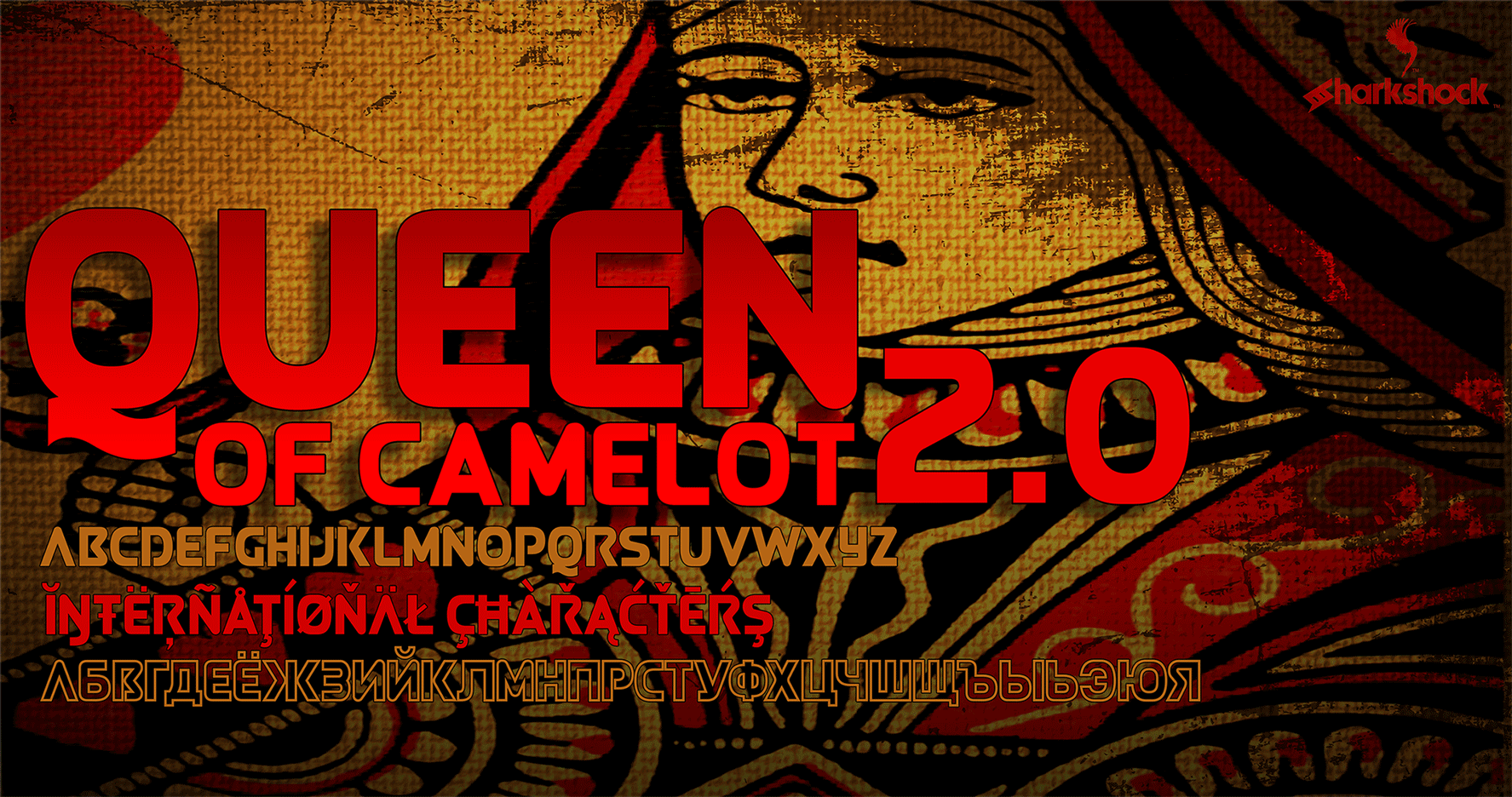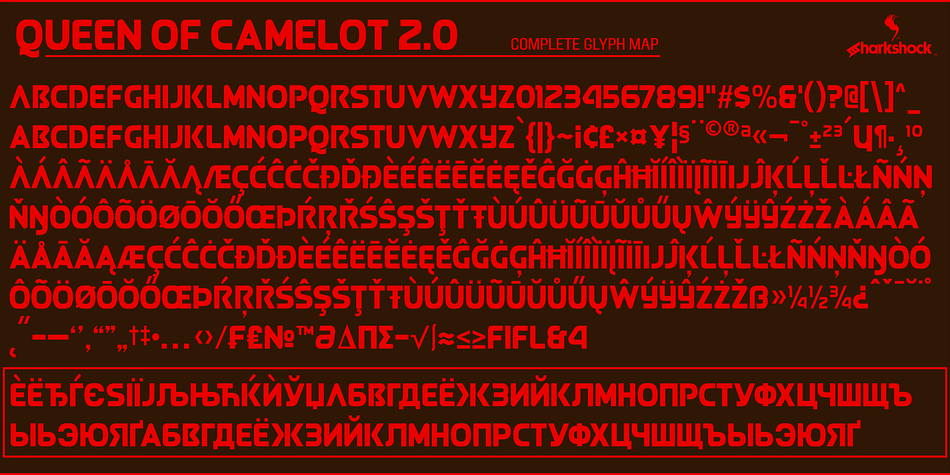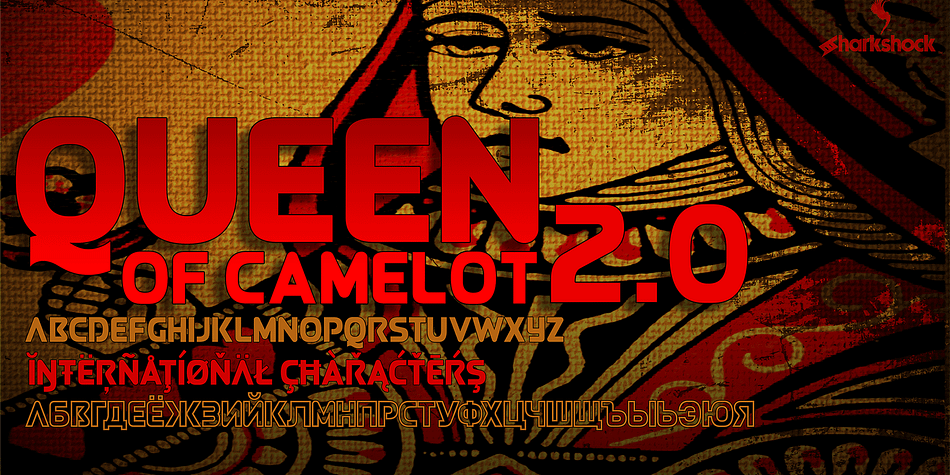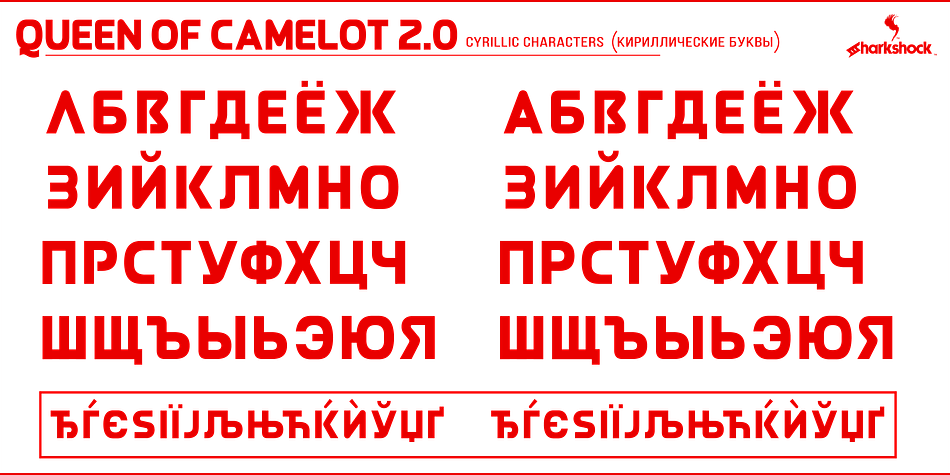
Designed by Dennis Ludlow, Queen Of Camelot is a display sans font family. This typeface has three styles and was published by Sharkshock.
After several revisions to Queen of Camelot a slightly different version has emerged and joins the 2.0 class. Improved metrics, kerning, and completely redrawn glyphs are the most notable upgrades to the original.
This all-caps display font features many rounded corners with no variation in width. Punctuation is included as is basic Latin, extended Latin, diacritics, Cyrillic, fractions, and kerning. There are 3 versions included in the complete family.
Use it for a logo, sports ad, magazine, or social media.